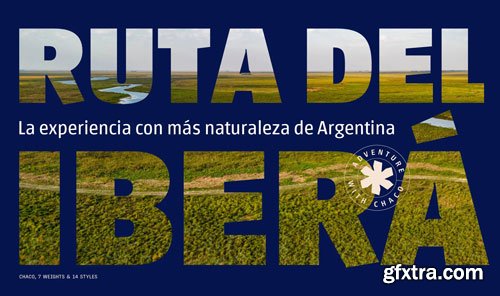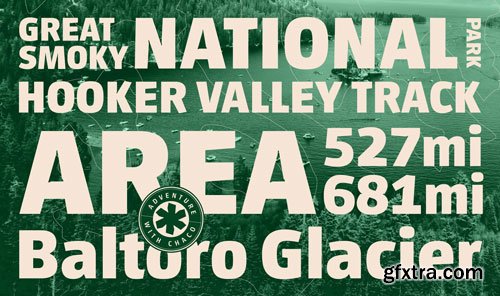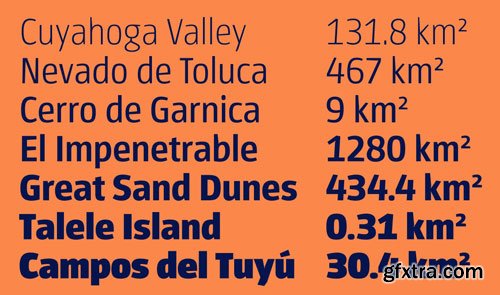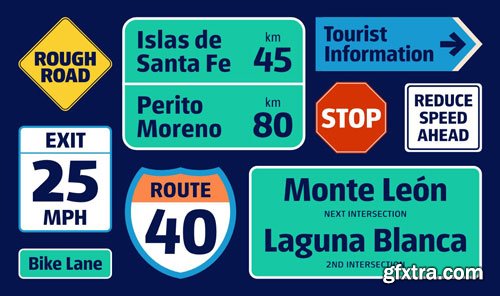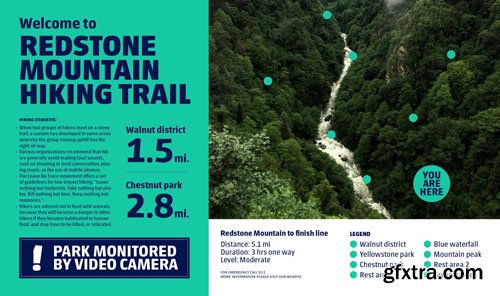
The Chaco family features TypeTogether’s standard Latin character set, with support for over 150 Latin-based languages and Vietnamese. Chaco is a full-fledged, multipurpose font created to optimise legibility even in extremely poor reading conditions: distant road signage on foggy days, increased word length in small spaces, memorable branding and identity packages in crowded markets, and reversed-out colour printing on imperfect substrates. The bold and contemporary Chaco family has been designed to convincingly succeed where so many other sans typefaces flounder.